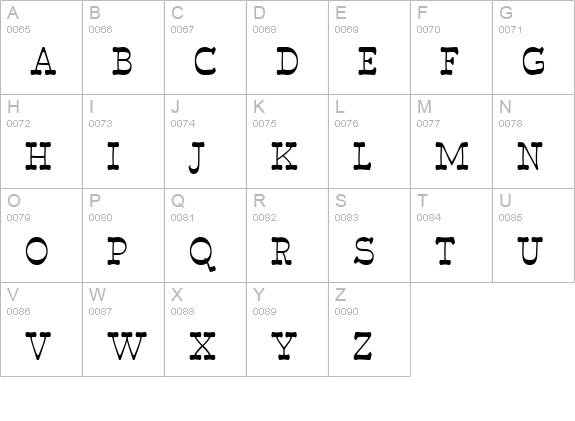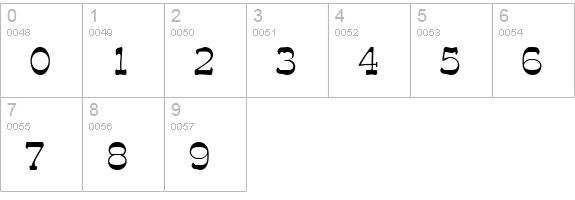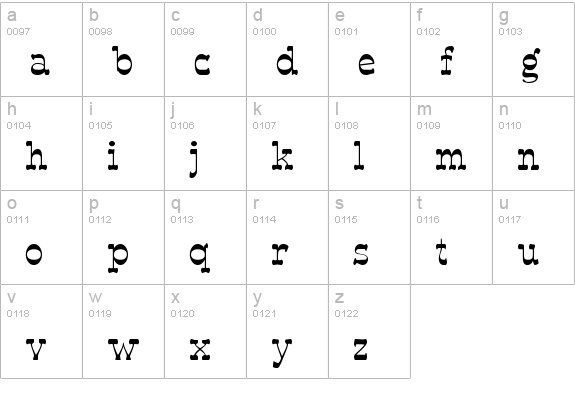
RoundWhy Font Details
Introducing RoundWhy font, a modern and stylish typeface designed to bring a touch of sophistication to your projects. With its rounded edges and smooth curves, RoundWhy exudes a sense of friendliness and approachability, making it perfect for a wide range of design applications. This versatile font is available in multiple weights and styles, allowing you to create eye-catching headlines, elegant logos, and sleek branding materials with ease. Whether you're working on a digital design project or a printed piece, RoundWhy's clean lines and balanced proportions will ensure a professional finish every time. Best of all, RoundWhy font is free to download at FontsMarket.com, making it accessible to designers of all levels. Don't miss out on the opportunity to add this stunning typeface to your font collection and elevate your designs to new heights. Download RoundWhy font today and start creating with style and confidence.